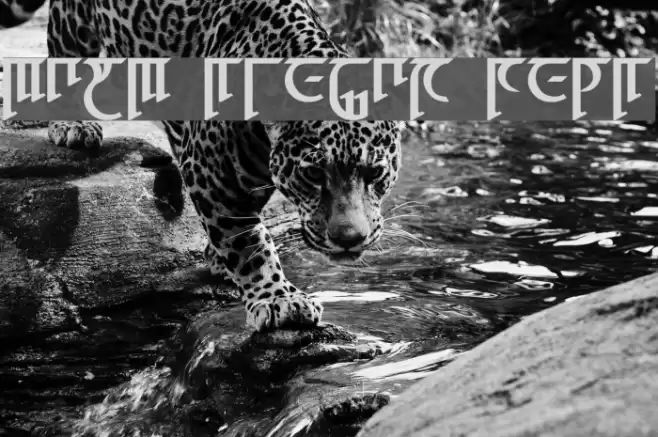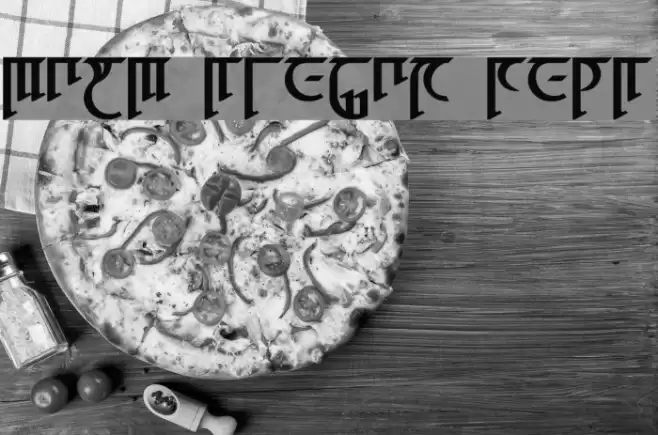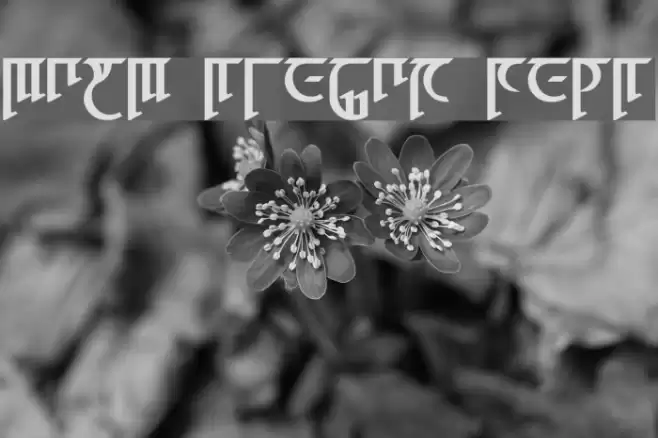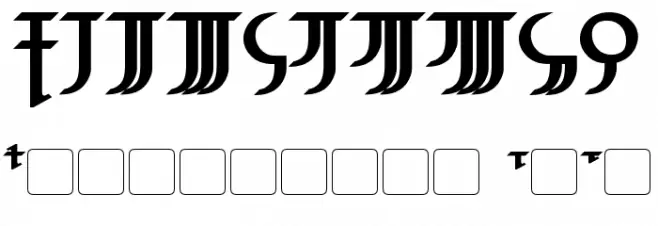
High Drowic Bold Font
High Drowic Bold Description
This font features a highly stylized and decorative design, reminiscent of ancient scripts or fantasy-themed typography. The characters are bold and angular, with sharp edges and intricate detailing that give them a unique, almost mystical appearance. The uppercase and lowercase letters share a consistent style, with a strong emphasis on vertical lines and pointed serifs. The numerals and special characters are equally ornate, maintaining the overall aesthetic. This font is ideal for projects that require a dramatic and eye-catching typeface, such as fantasy book covers, game titles, or themed event invitations.
A bold, decorative font with sharp, angular lines and a mystical, fantasy-inspired style from Uncategorized fonts.
- Proposed Projects: Fantasy book covers, game titles, themed event invitations, or any project needing a dramatic typeface.